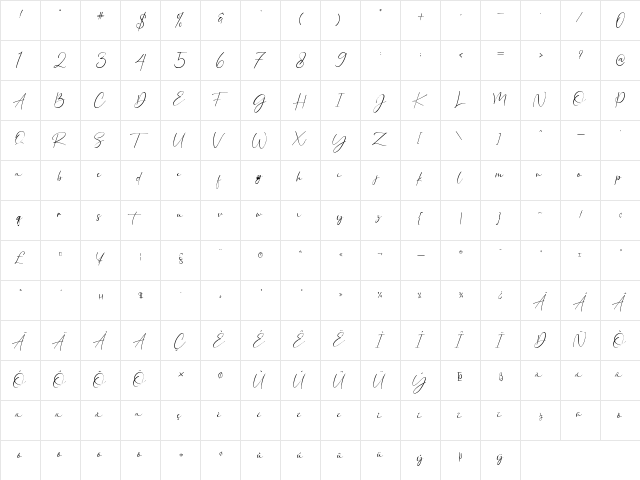
Alloystan Regular Font Preview
Alloystan Regular
Alloystan Regular Font Details
Design Context for Alloystan Typeface
Alloystan is a composed and adaptable typeface that performs quietly and consistently across a wide range of design contexts.